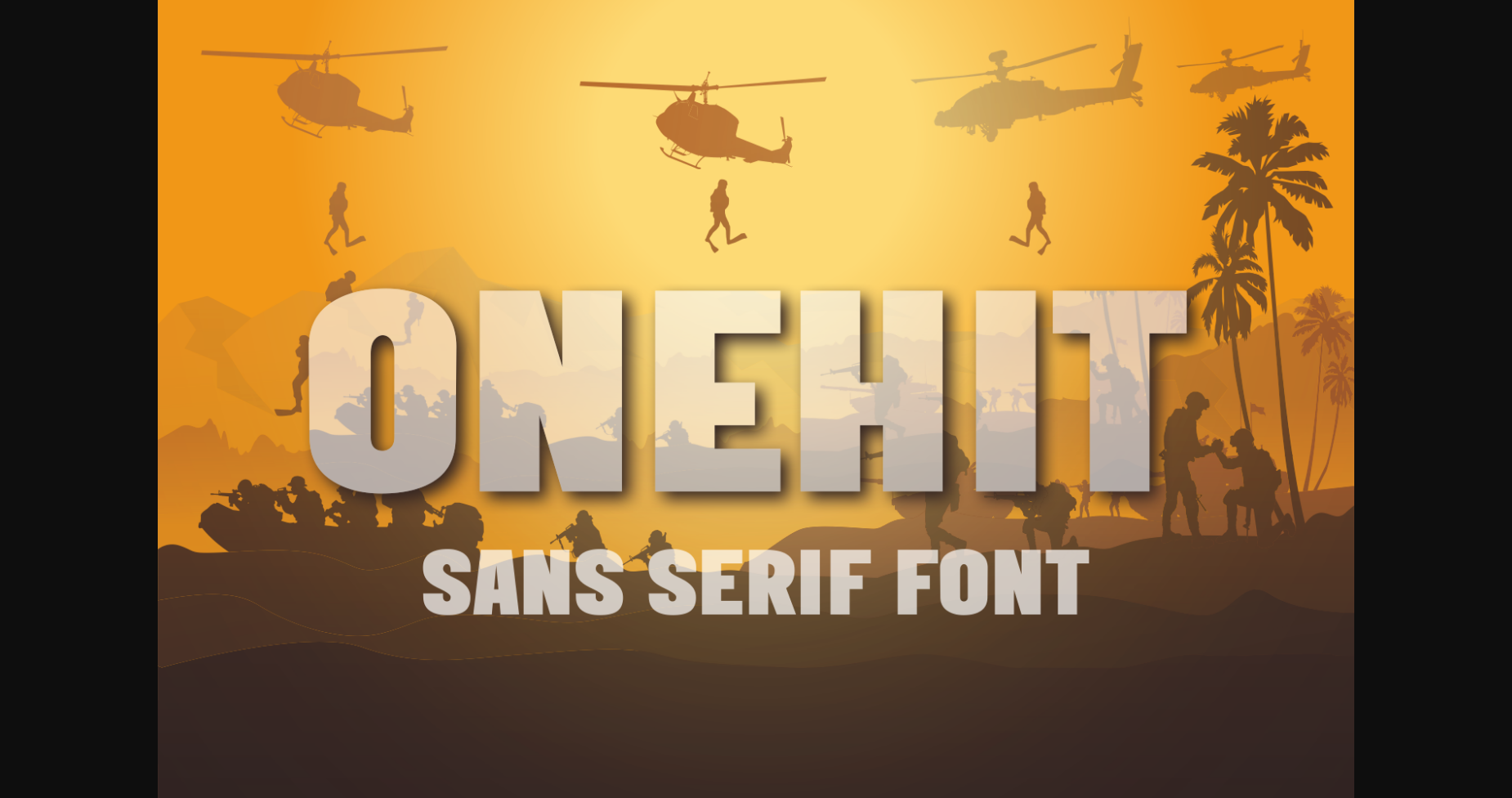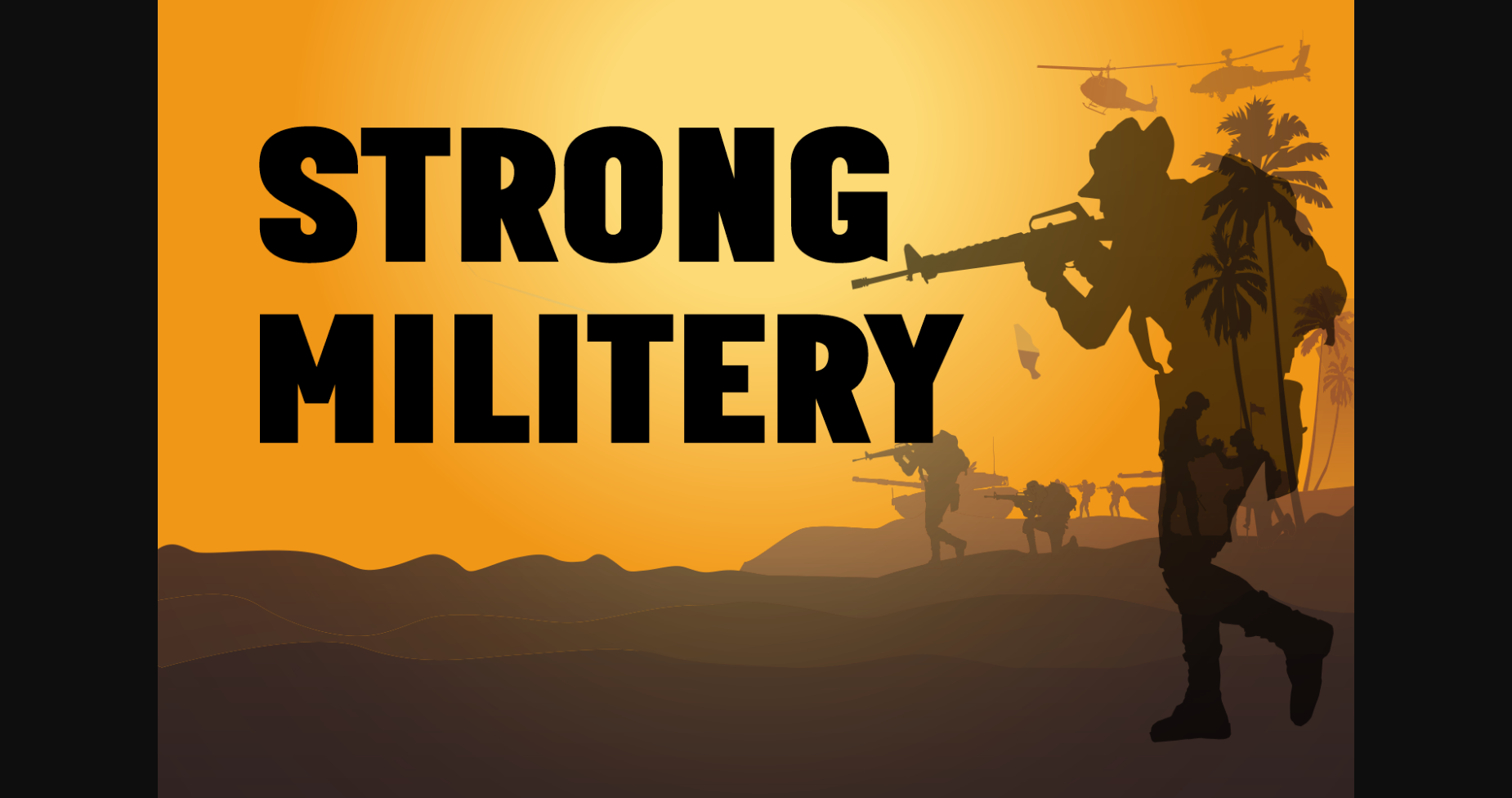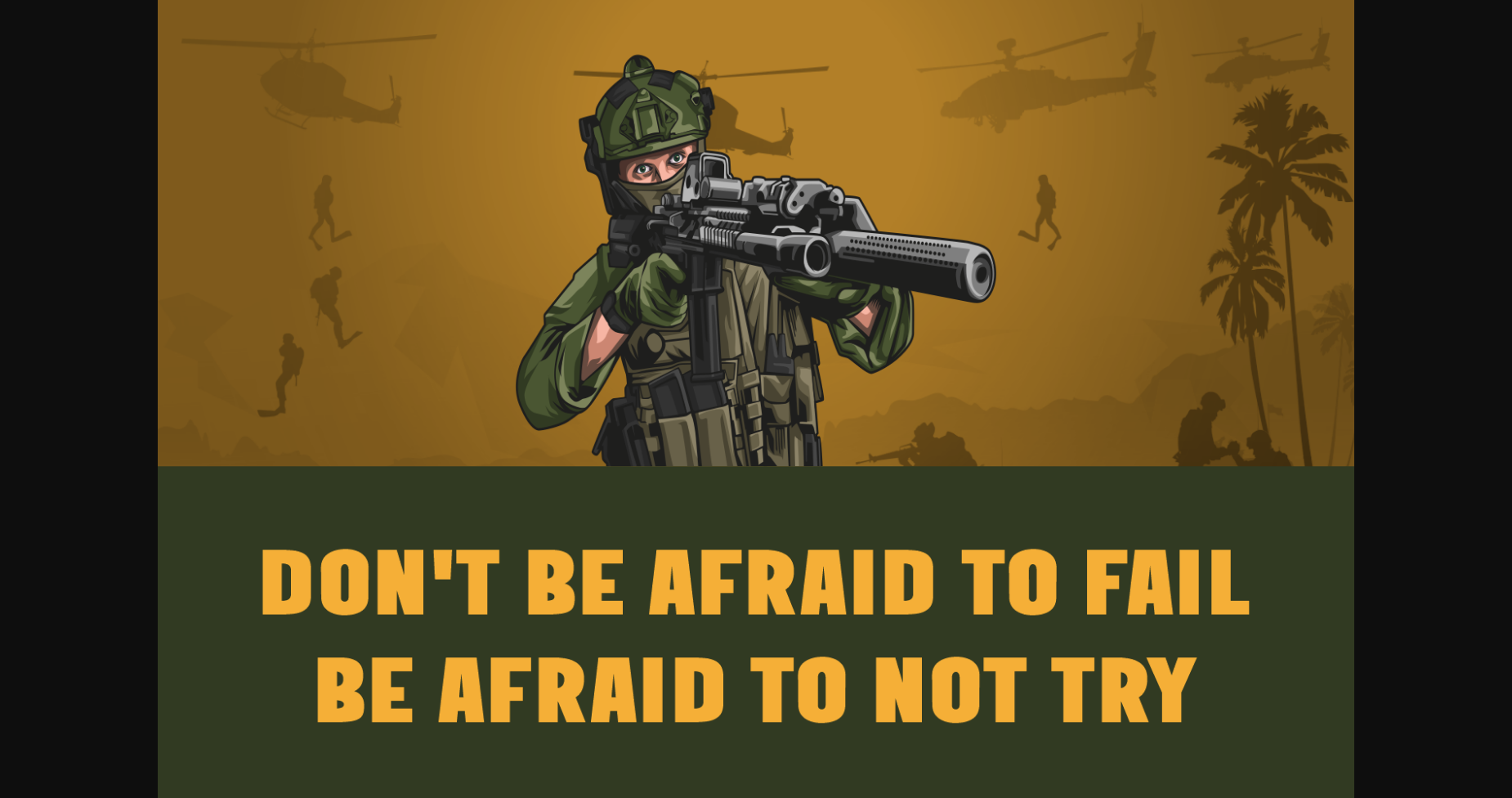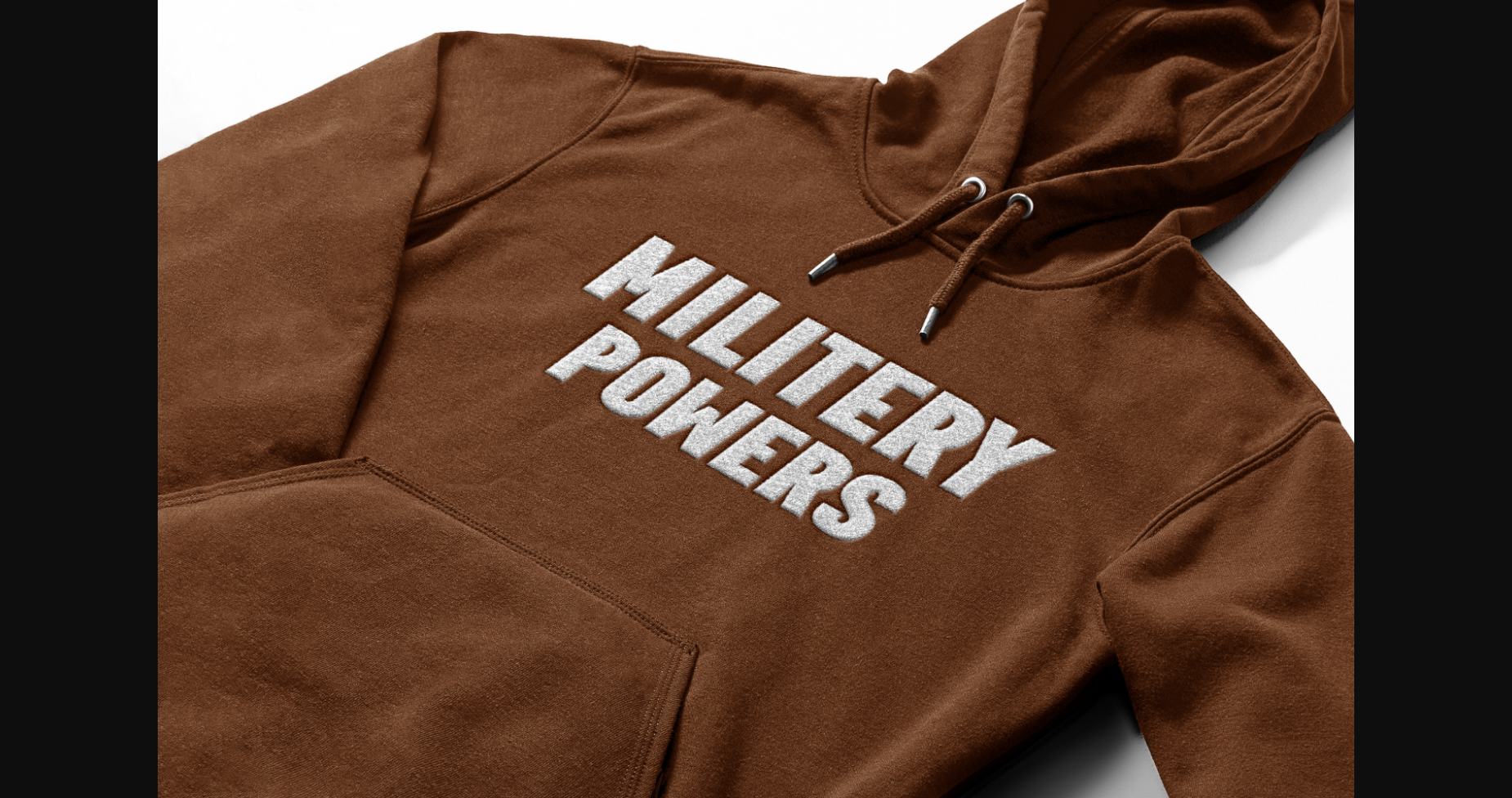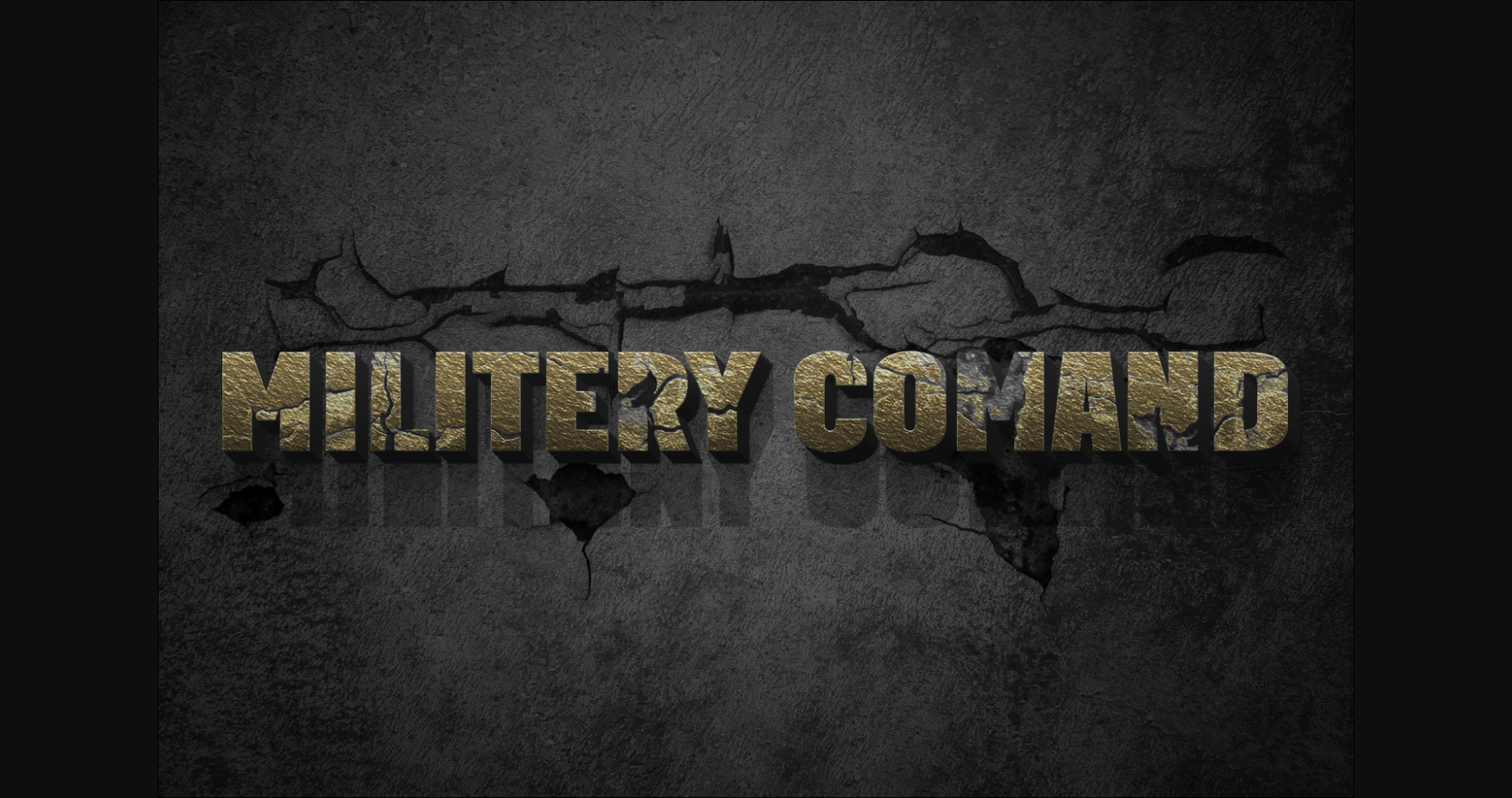
Onehit is a modern sans serif font. This minimalist and clean vibe can easily apply to your favorite designs such as book covers, magazines, social media posts, invitations, and so much more!